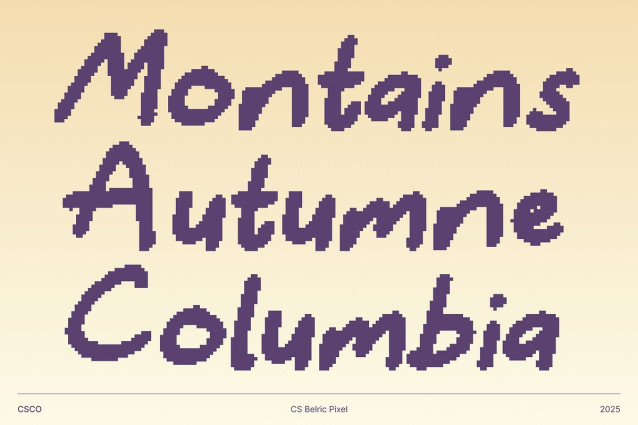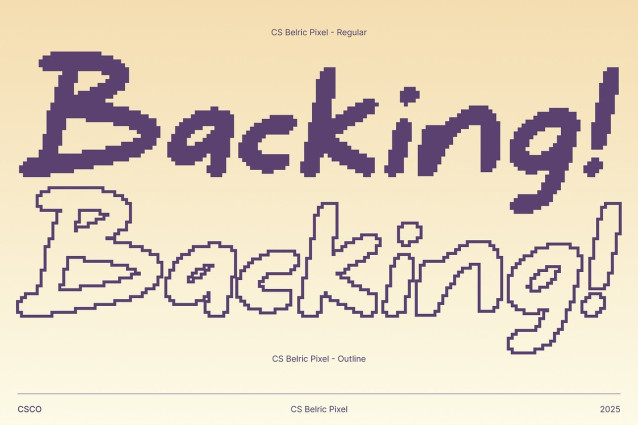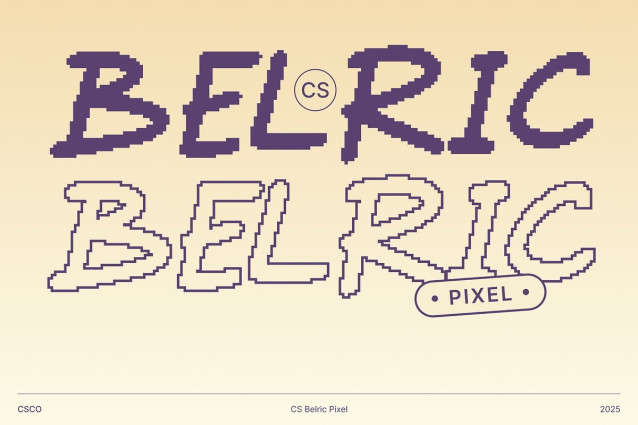
CS Belric Pixel Font
CS Belric Pixel Font is a friendly and expressive handwritten style display font infused with a playful pixel aesthetic. Its casual strokes and digital texture blend human warmth with modern creativity, giving every design a lively and approachable feel.
Playful Texture with Modern Appeal The pixelated detail adds depth and character, transforming simple handwritten forms into something fresh and distinctive. This unique combination of analog expressiveness and digital precision makes this font perfect for projects that bridge creativity and technology.
Expressive and Versatile Design Designed to be both fun and functional, this font adapts beautifully to various design contexts. Whether used for headlines, posters, or creative branding, its expressive rhythm and handcrafted style bring energy and charm to every composition.
Perfect for Creative and Casual Projects From branding and editorial layouts to digital posters and playful content, this font delivers a balance of friendliness and innovation. Its pixel-inspired texture and handwritten flow make it an ideal choice for designs that aim to be both modern and full of personality.